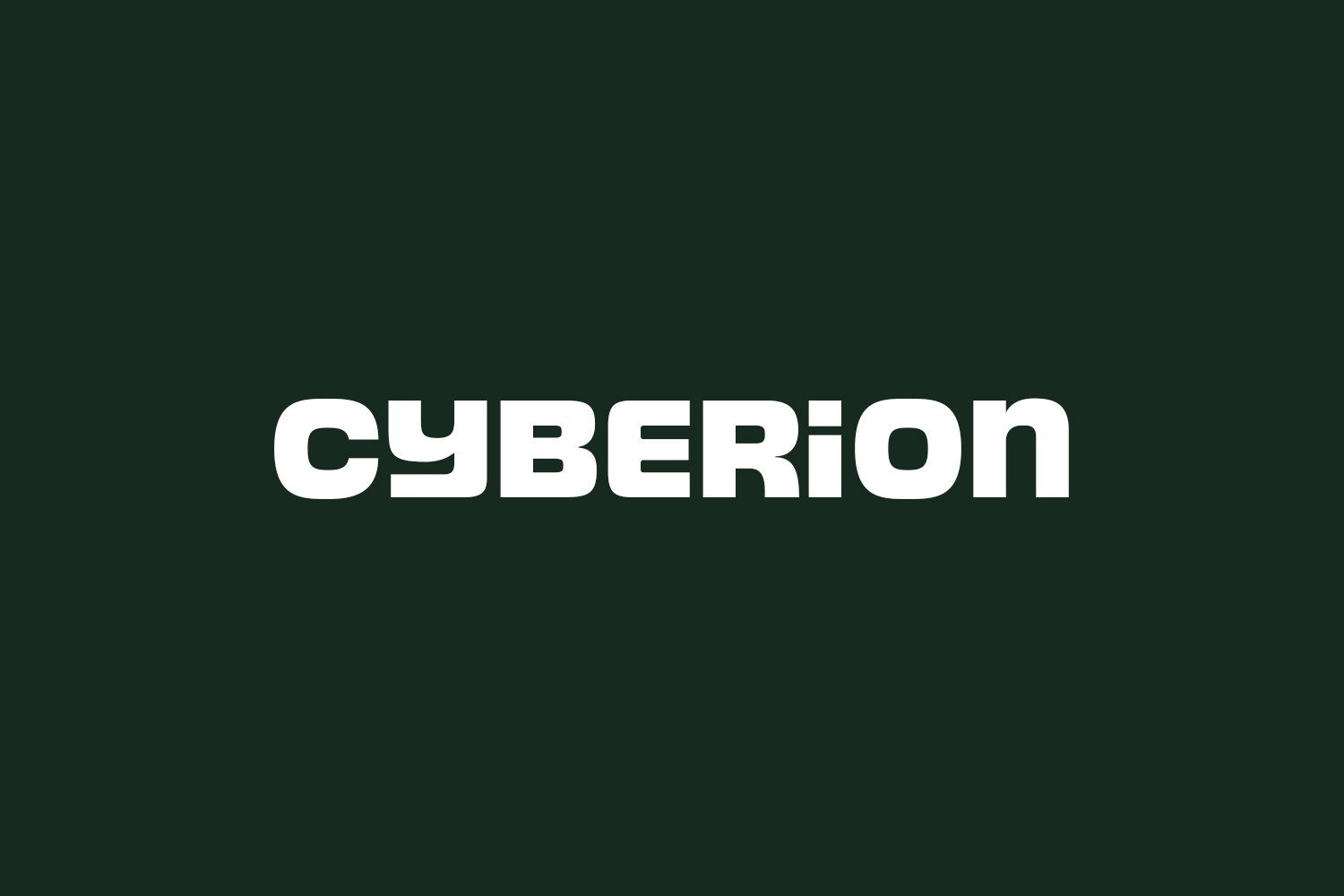
Cyberion Free Font is a cool, bold, and thick lettered display font. It is ideal for writing web designs, business cards, or pretty much anything else that requires a futuristic touch. Cyberion Free Font was designed by Letterhend Studio and is free for personal use only. Please purchase the full version for commercial use.